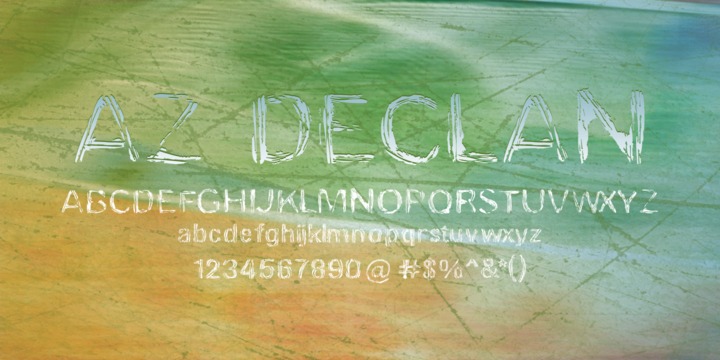
• AZ Declan
AZ Declan was inspired from a need to develop a san serif typeface with a scrawled scratchy feel to it.
This font was designed for use as a fun bold headline.